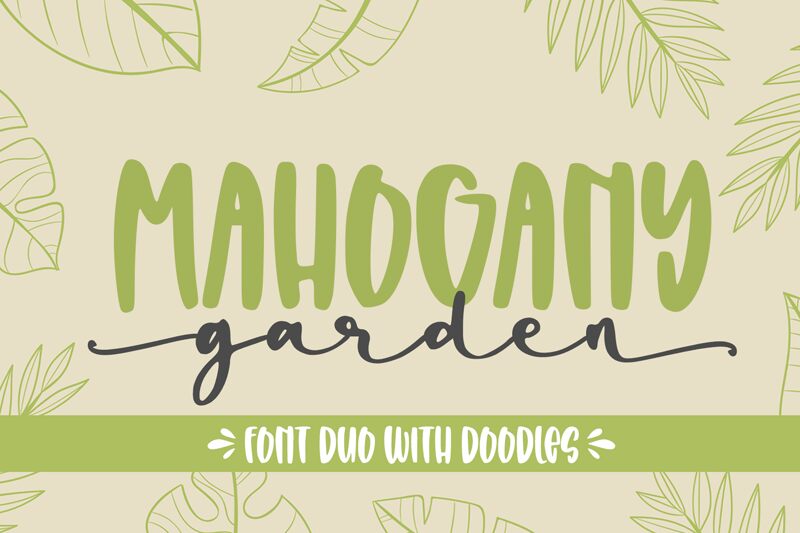
Mahogany Garden Doodle
Mahogany Garden Doodle, from the Mahogany Garden font family, brings a touch of whimsy and natural charm to any creative project. Designed by Abo Daniel Studio, this dingbat typeface is not just a collection of symbols but an assembly of hand-drawn botanical illustrations that capture the essence of a serene garden.
Each character in Mahogany Garden Doodle is meticulously crafted to offer designers an array of playful yet elegant botanical motifs. From delicate flowers to quirky cacti, the font's aesthetic appeal lies in its simplicity and stylized representation of nature. The clean lines and uncluttered design make it highly legible while giving your work an organic, earthy feel.
Perfect for gardening enthusiasts or projects aiming to convey a green, eco-friendly message, Mahogany Garden Doodle can sprinkle a little bit of nature's magic onto invitations, branding materials, educational content, and more. Its charming style ensures that your designs will stand out with a handcrafted touch that resonates with audiences seeking authenticity and creativity.
MAHOGANY GARDEN
- font duo with doodles -